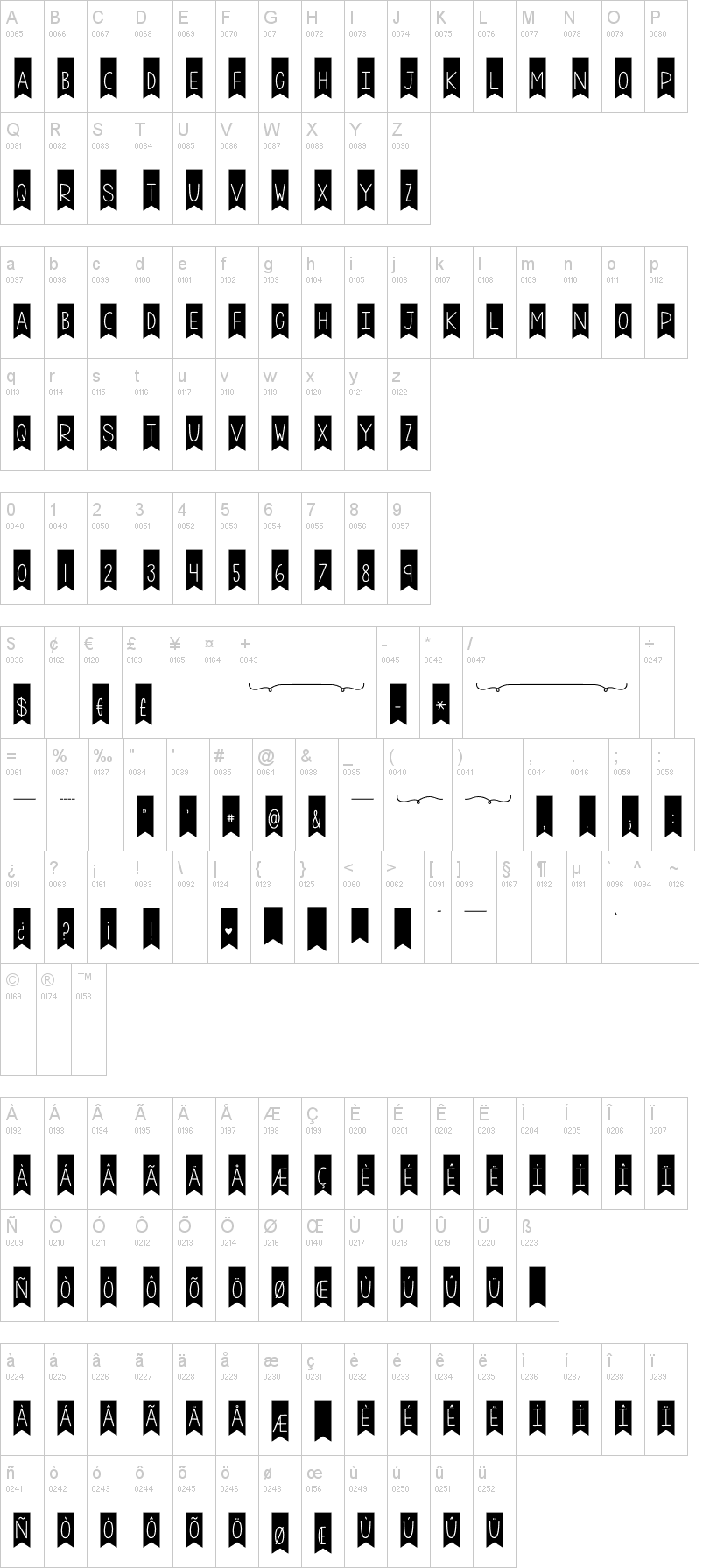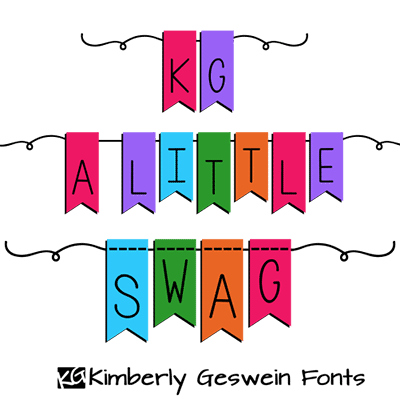
Build your own stacked bunting by using these easy-to-layer bunting images. Capital letters have long alphabet bunting, lowercase letters have short alphabet bunting. () (Parentheses) have tails to attach the bunting and the underscore _ has a connecting piece to make the bunting "ribbon" on top connect over each piece. Solid buntings are in the greater than and less than keys <> (greater than makes a long bunting, less than makes a short bunting). Use these to build shadows or put a color behind your bunting. Totally customizable and fun!